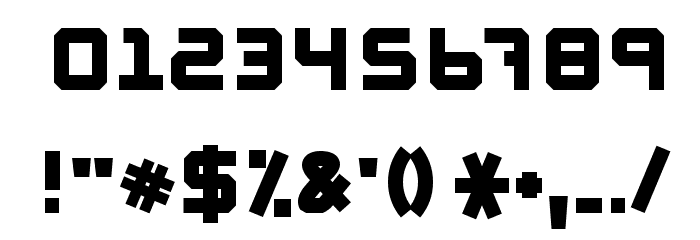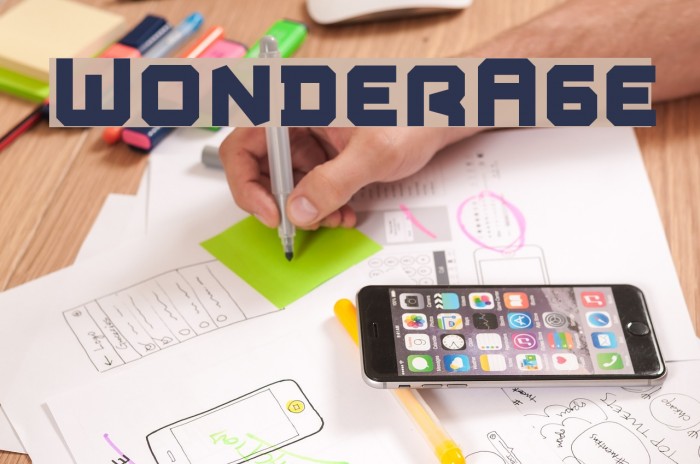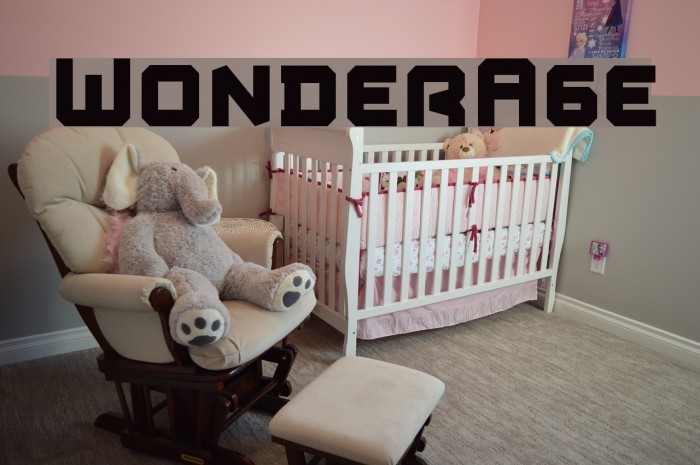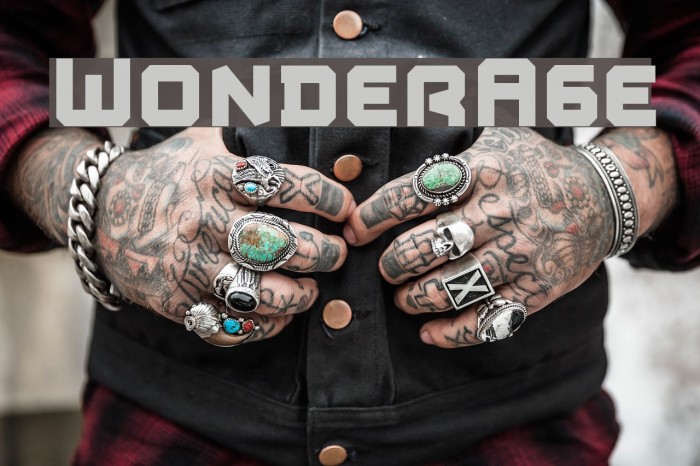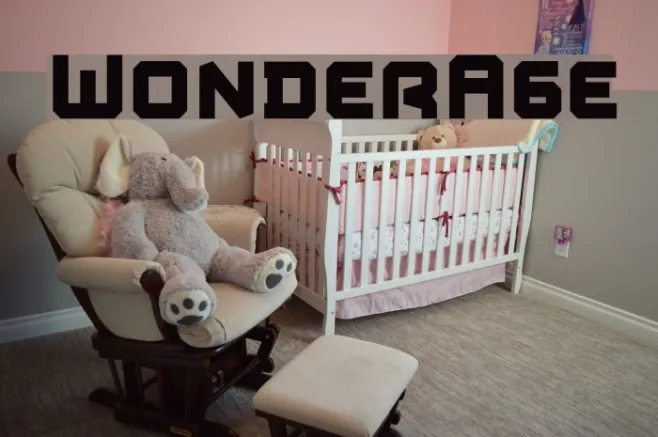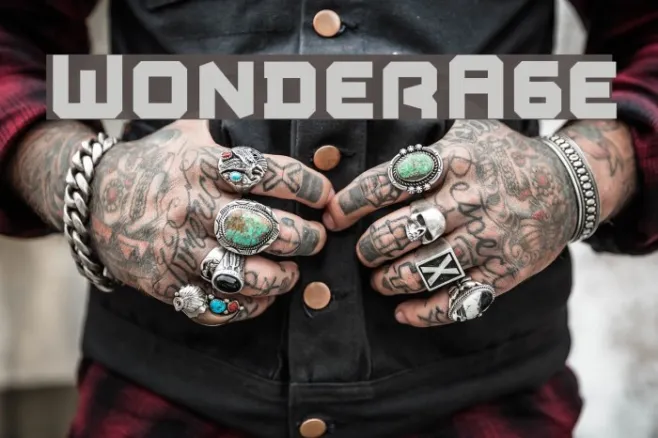
WonderAge Font
This font features a bold and geometric design with a strong presence. The characters are constructed with thick, uniform strokes, giving them a blocky and robust appearance. The angular edges and consistent line thickness contribute to a modern and industrial feel. The uppercase and lowercase letters maintain a cohesive style, while the numerals and special characters align seamlessly with the overall aesthetic. This font is highly legible and commands attention, making it suitable for impactful designs.
A bold, geometric font with a modern and industrial style.
- Proposed Projects: Ideal for branding, posters, headlines, and any design requiring a strong visual impact.